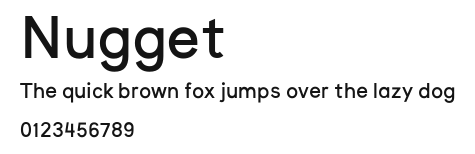
• Font Name: Nugget
About Nugget.ttf
Nugget.ttf is a modern, elegant sans-serif font designed for ultimate readability and visual harmony. Perfect for branding, headlines, web design, and print materials.